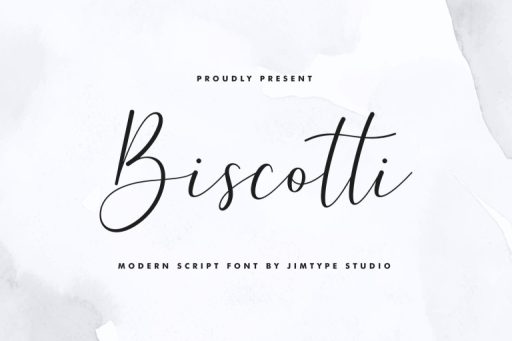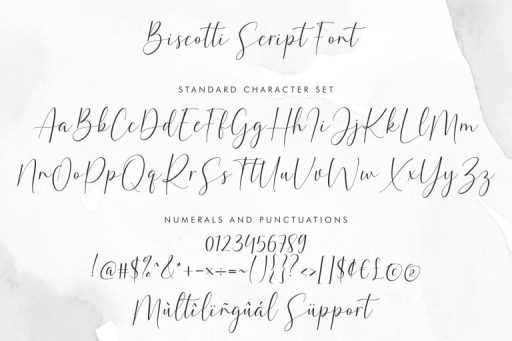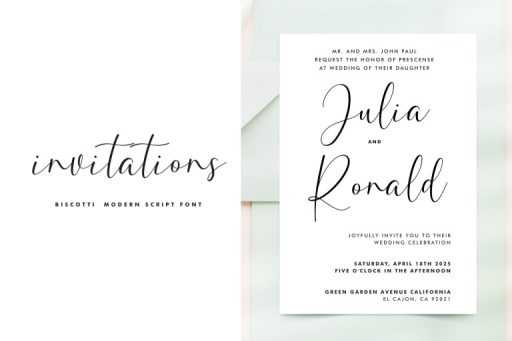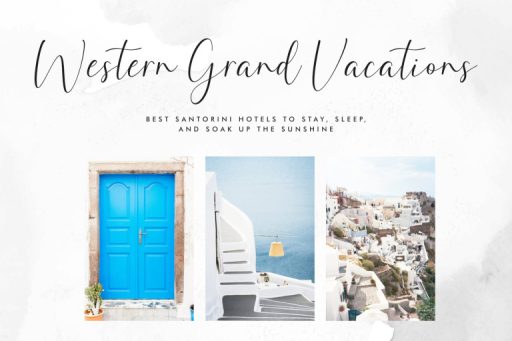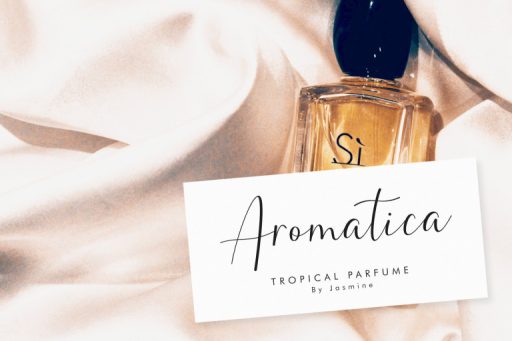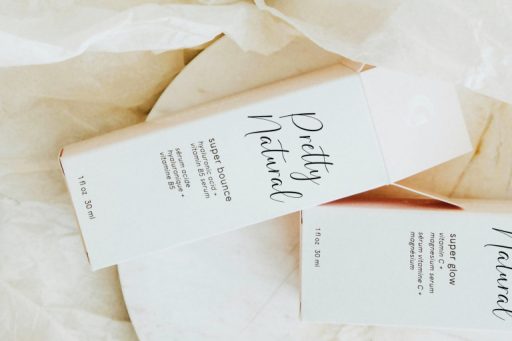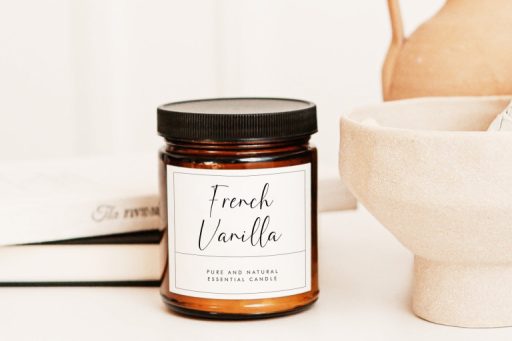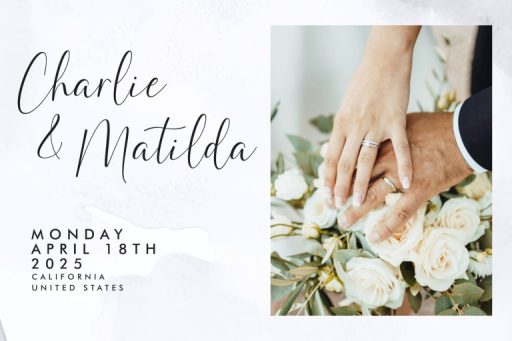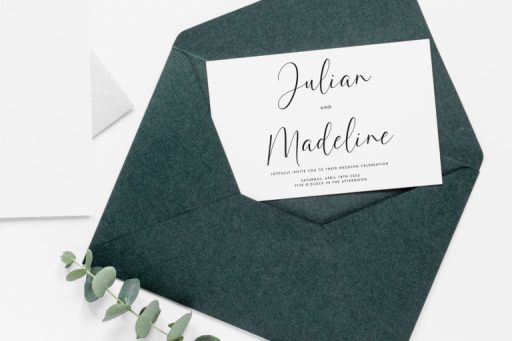
Biscotti Script Font - Wedding Business Font from Jimtype Studio
Biscotti Script Font
Biscotti Script Font – Wedding Business Font from Jimtype Studio
Say hello to ‘Biscotti Script’! – A very elegant, super casual, and realistic-looking modern script font.
This subtle Biscotti Script looks stunning for wedding invitations, thank you cards, quotes, greeting cards, logos, branding, business cards, social media posts, magazines, and marketing materials, and adding a soft feminine feel to your projects. Fall in love with this very smooth and modern font and use it to create spectacular designs!